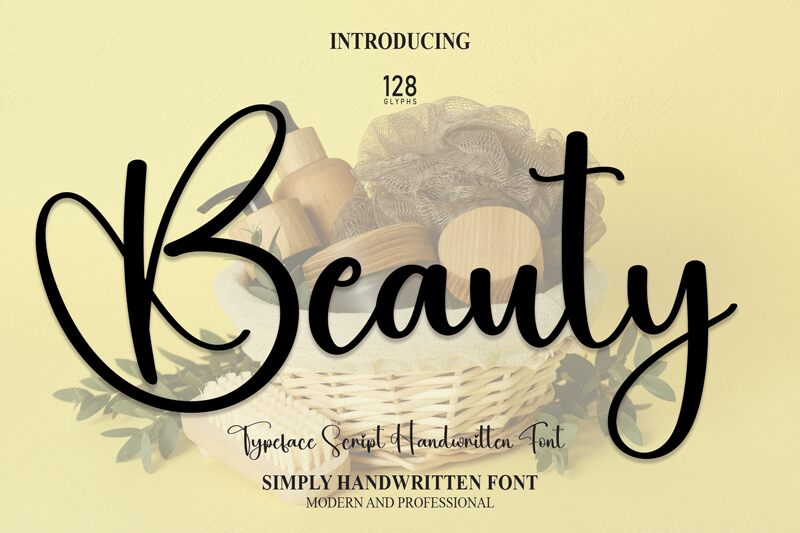
Beauty
Beauty, a mesmerizing calligraphy font crafted by scratchones, adds an enchanting touch to any project. With its semi-light weight, this font exudes elegance and grace. Perfect for wedding invitations, greeting cards, and feminine branding projects, Beauty will captivate your audience with its flowing strokes and delicate curves. Enhance your designs with this font that effortlessly combines readability with style. Whether it's crafting a romantic logo or creating stunning typography for social media graphics, Beauty is the ideal choice to infuse your projects with sophistication and allure.
the latest style letters are perfect for wall displays, wedding invitations, social media post logos, advertisements, product packaging, product designs, labels, photography, watermarks, invitations, stationery, and any project that requires taste handwriting.